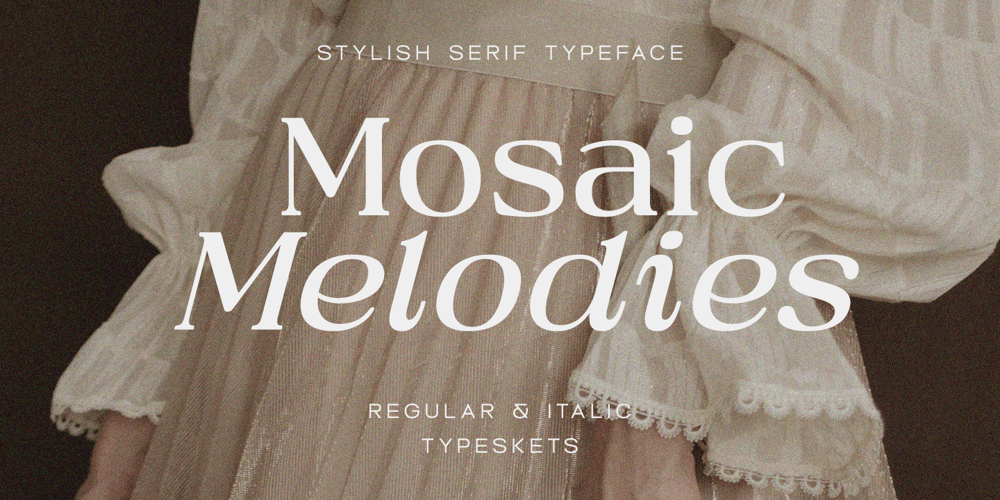
Mosaic Melodies Font Family was designed by Sahrul Hidayat and published by Typeskets. Mosaic Melodies contains 2 styles and family package options. Mosaic Melodies is a stylish serif font that seamlessly blends timeless charm with modern flair. Its meticulously crafted letterforms offer an elegant twist on traditional serifs, creating a captivating visual appeal. The font’s high contrast strokes convey a dynamic flow, and its accompanying italic version adds a touch of graceful variation. Whether for magazines, websites, or branding, Mosaic Melodies brings a sophisticated yet contemporary touch to any design, making it an ideal choice for those seeking a balance between classic and stylish typography.